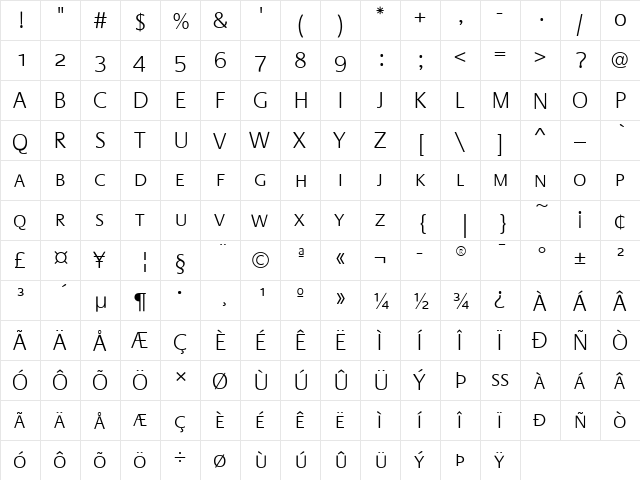
Praxis LT LightSC Regular
Design Context for Praxis LT LightSC Typeface
Praxis LT LightSC takes a measured approach to typography — its balanced proportions and neutral character make it a reliable workhorse for both digital and print work. The delicate stroke weight brings airiness and refinement to layouts.